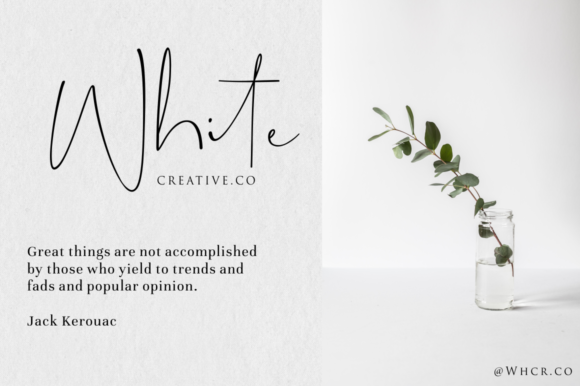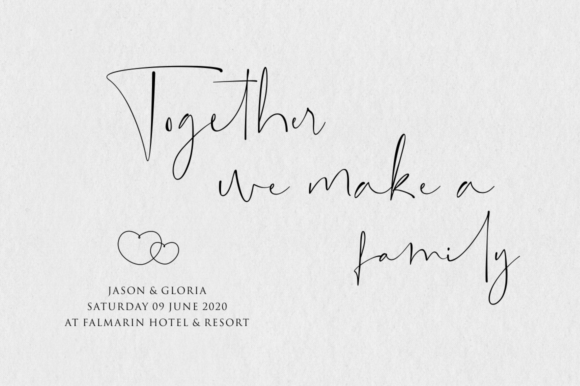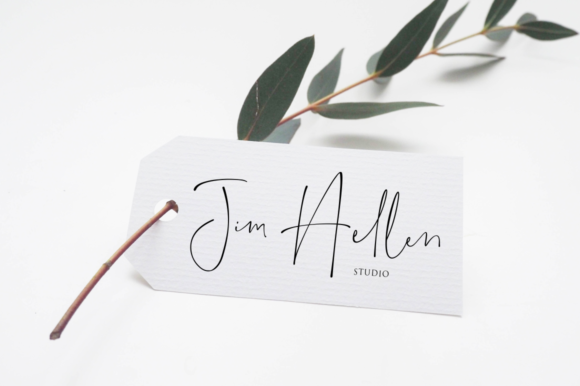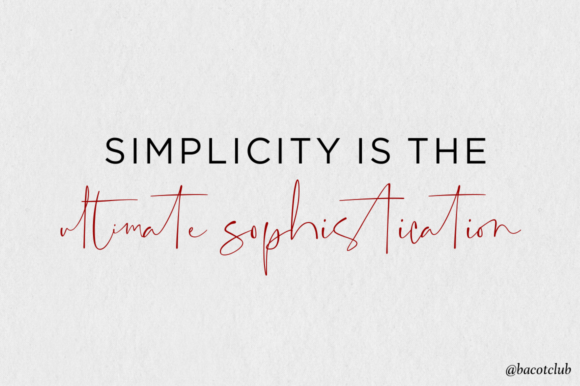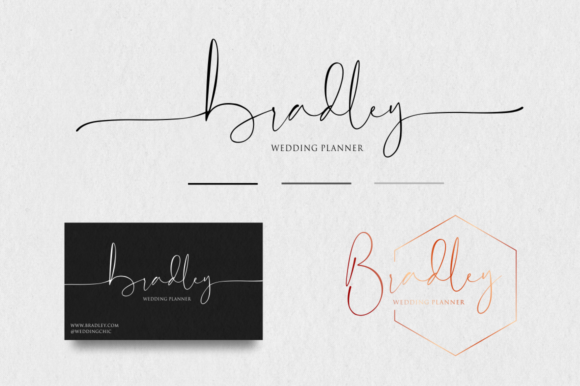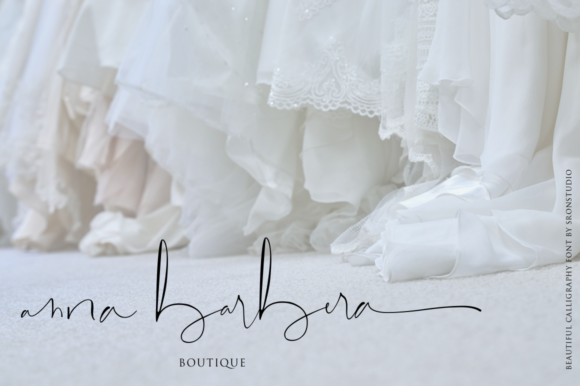
Introduction to Singletone Font
Singletone is a beautiful calligraphy font perfect for branding, invitations, stationery, wedding designs, social media posts, advertisements and so much more.
This font is PUA encoded which means you can access all of the glyphs and swashes with ease Fall in love with its incredibly versatile style and use it to create spectacular designs.